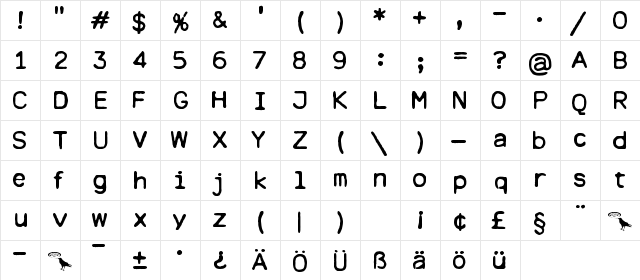
Dresden Elektronik Regular
| Foundry | Lukas Krakora |
| Designer | Lukas Krakora |
Design Context for Dresden Elektronik Typeface
Dresden Elektronik offers clean, dependable letterforms without strong stylistic allegiance, making it a practical choice for designers who need flexibility.